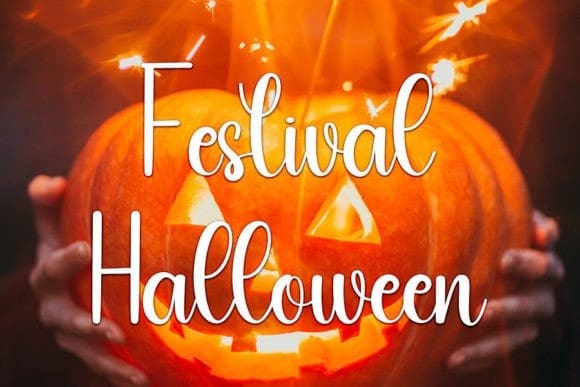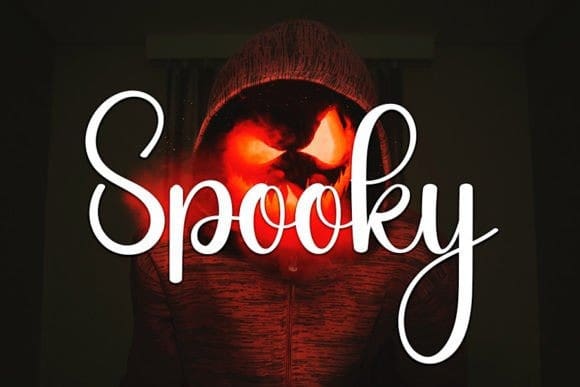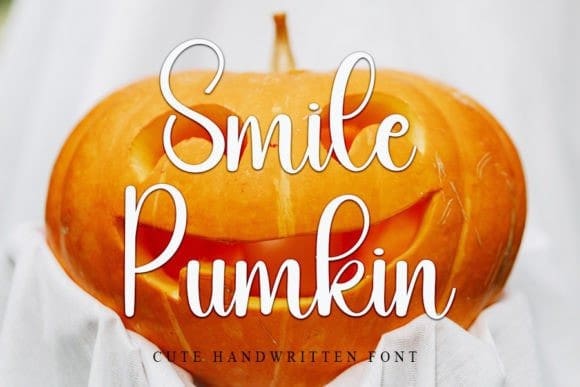
Smile Pumkin Font
Smile Pumkin Font is a neat and beautiful handwritten font described by an elegant touch, perfect for your favorite projects. Fall in love with its incredibly distinct and timeless style, and use it to create spectacular designs!